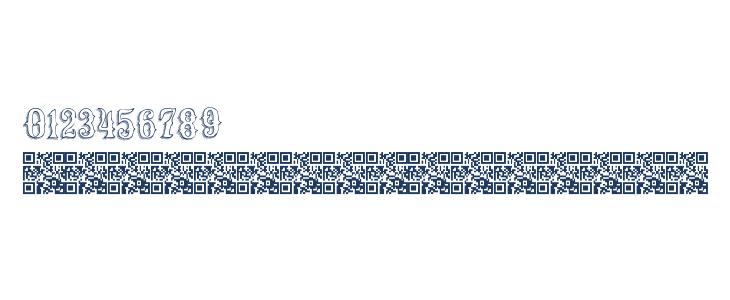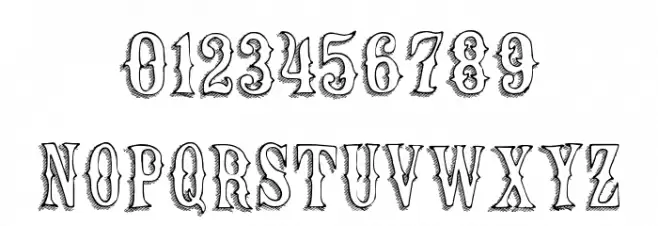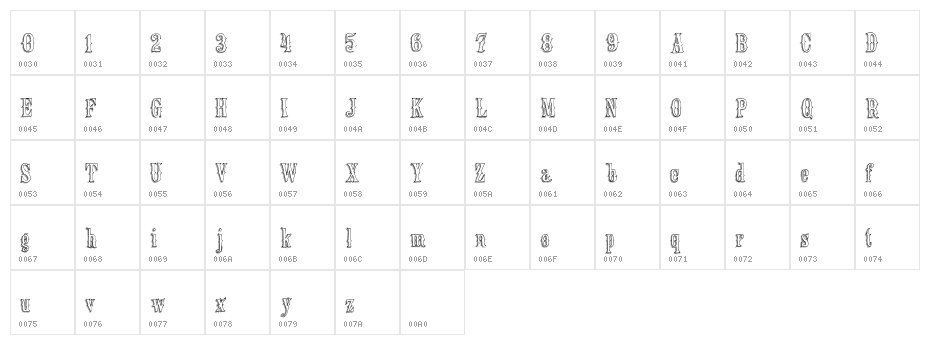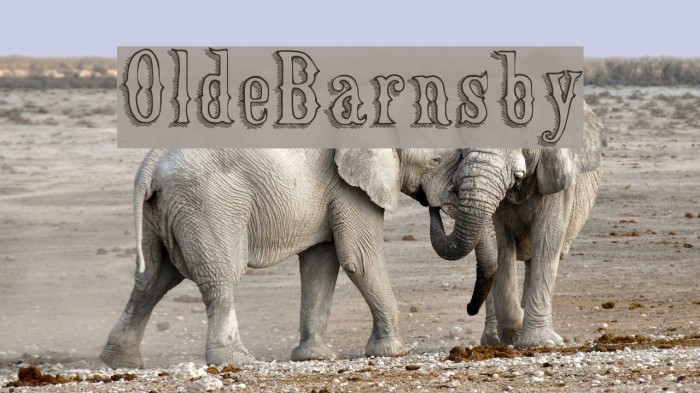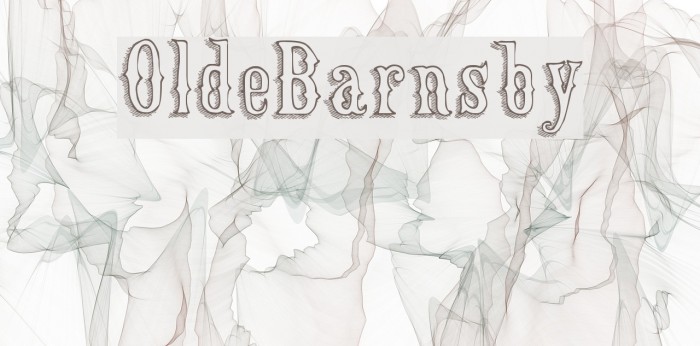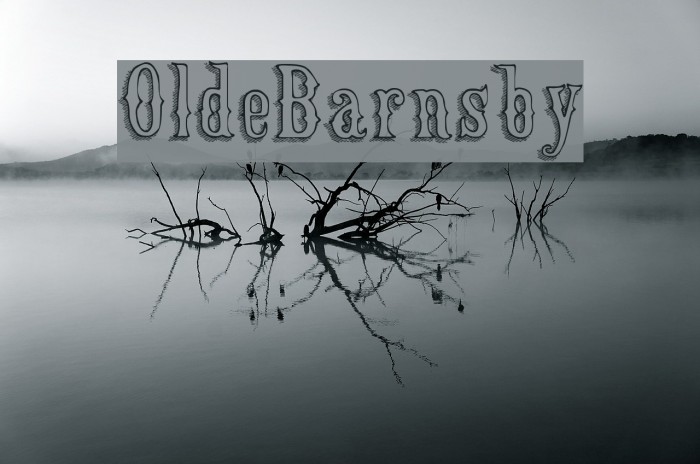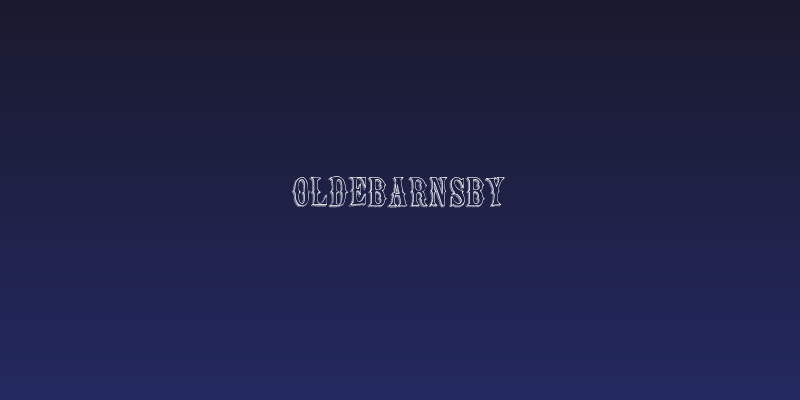
OldeBarnsby Font
OldeBarnsby Description
This font features a decorative and vintage style with a distinct hand-drawn appearance. The characters are embellished with intricate details and shading, giving them a textured and dimensional look. The uppercase and lowercase letters maintain a consistent style, with a slight flourish on certain characters that adds to the overall ornate feel. The numbers and special characters are equally detailed, ensuring a cohesive appearance across all glyphs. This font exudes a sense of nostalgia and craftsmanship, making it ideal for projects that require a touch of elegance and historical charm.
| Use Case | Headlines, Logos, Decorative text |
| Proposed Projects | Ideal for vintage-themed posters, invitations, branding for artisanal products, or any project needing a historical touch. |